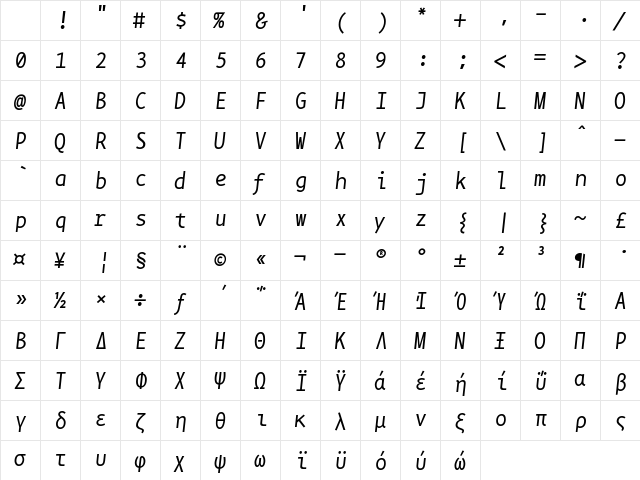
BPmono uses fixed-width spacing throughout, giving it the structured, systematic character associated with coding environments and technical documentation. The slanted form adds forward momentum and visual energy.
Pro Tip: Use BPmono with slightly increased line-height for extended reading - fixed-width spacing can feel dense in longer passages without extra breathing room.